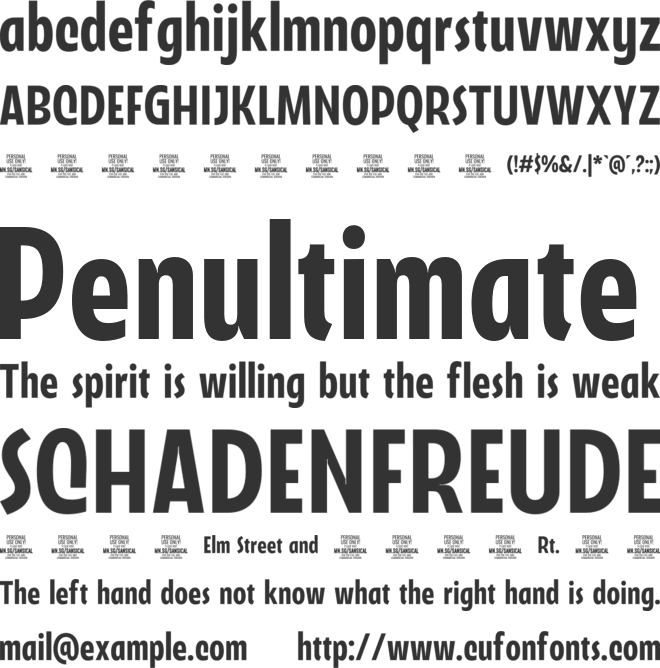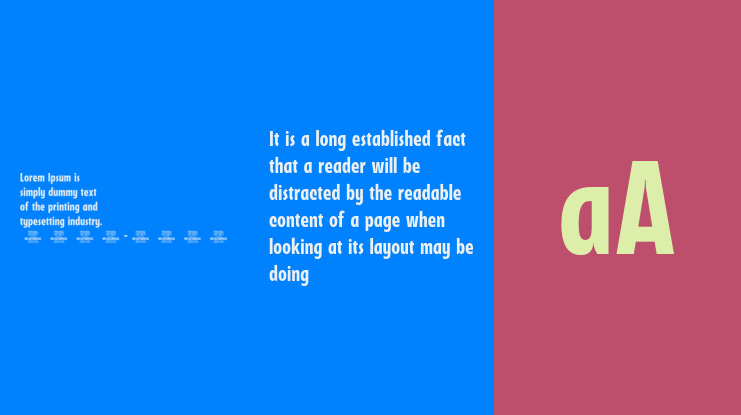
Sansical PERSONAL USE Font
Mans Greback
NOTE: This font is for PERSONAL USE ONLY!To purchase a commercial license, visit:https://www.mansgreback.com/product/sansicalSansical is a modern sans-serif typeface that blends a distinctive style with clear, easy-to-read forms. It strikes a balance between cool, contemporary aesthetics and high legibility, making it a versatile option for both digital and print applications. The characteristic sharp edges and smooth curves give Sansical a unique personality, while its clean structure ensures it remains functional across a wide range of uses.For questions, please visit https://mansgreback.com/faq